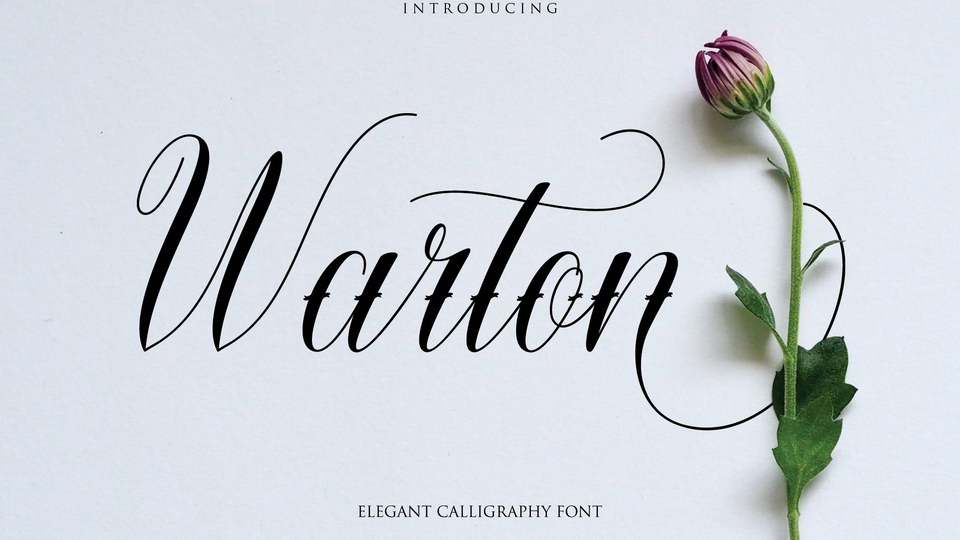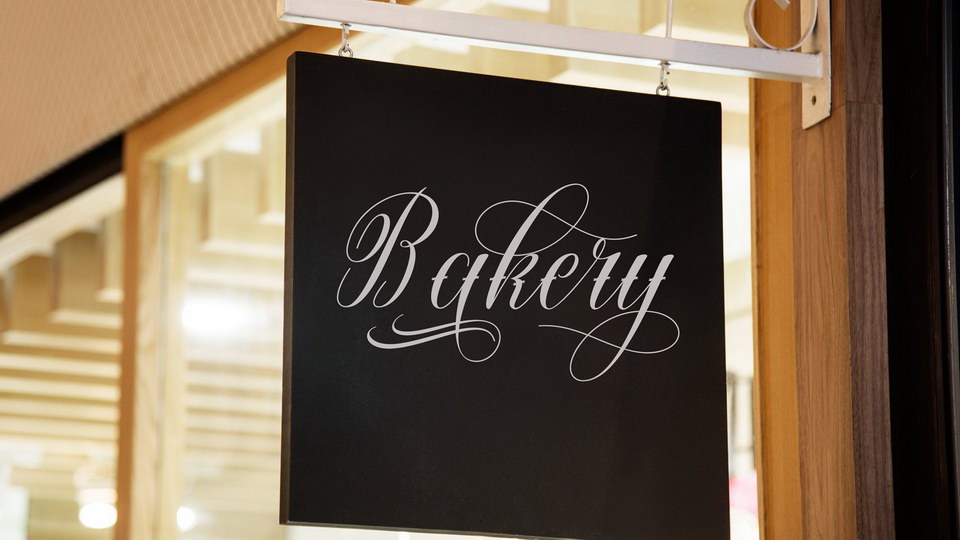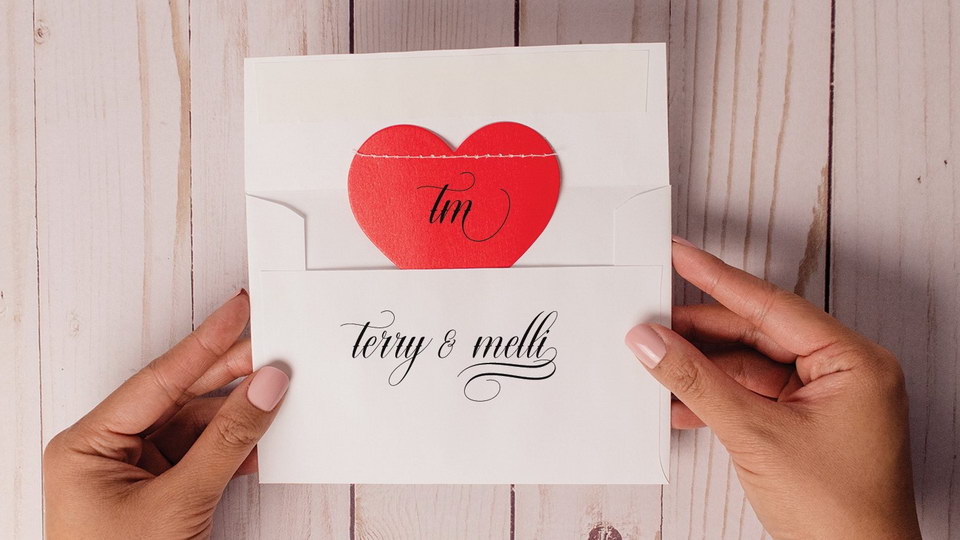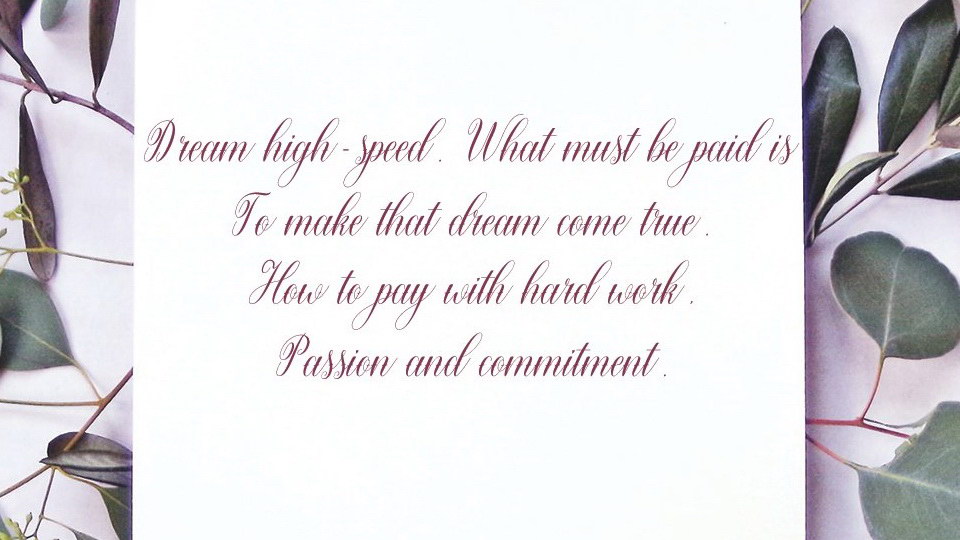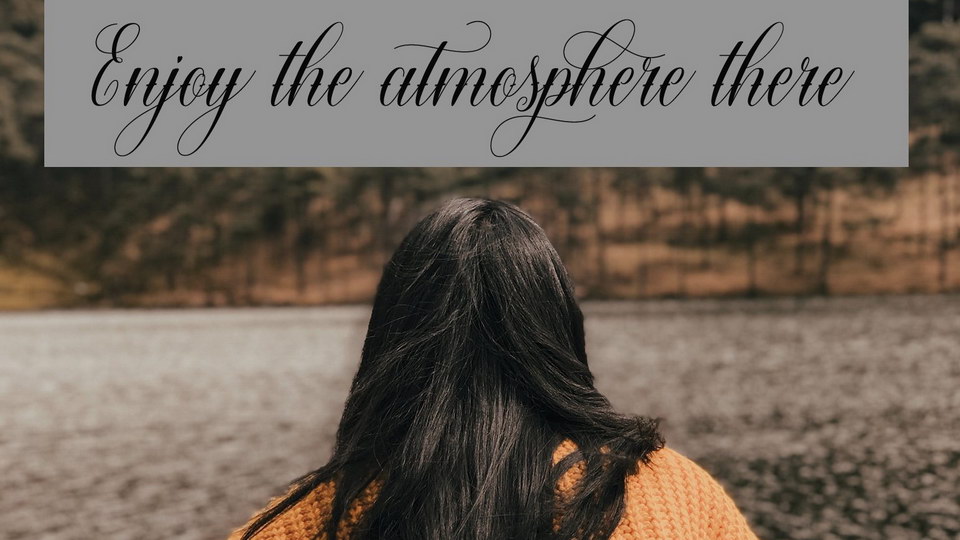
Warton is an elegant calligraphy font. This font is designed in handwriting, and has its own uniqueness, a modern calligraphy form, and a very natural writing style.
Warton can be used for various purposes such as headings, logos, wedding invitations, t-shirts, letterheads, signatures, labels, news, posters, badges etc.